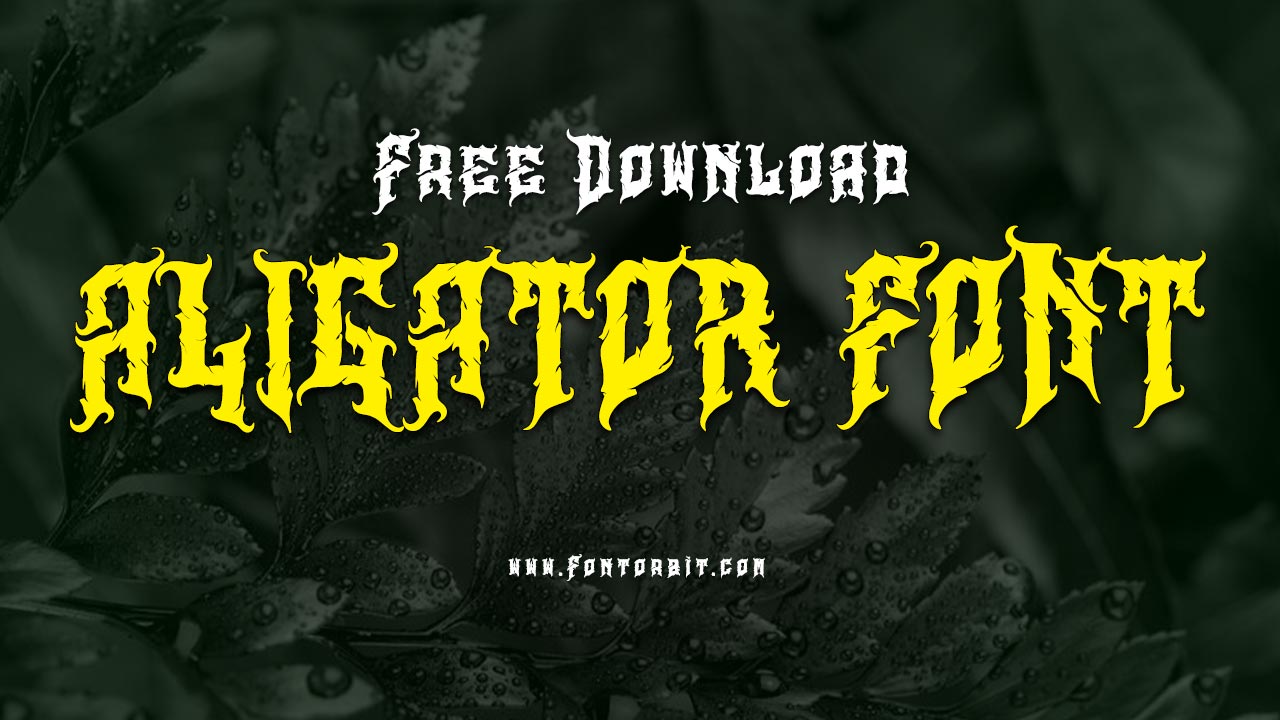
Risman Ginarwan designed the Aligator Font, a Gothic-style typeface available through Garisman Studio. Known for its bold and dramatic appearance, Aligator Font brings a distinctive, powerful look to a variety of design projects. It is available for free for personal use, making it accessible for non-commercial creative projects.
The Gothic style characterizes the Aligator Font, giving it a striking and impactful appearance. The font family includes:
Aligator Font’s bold, Gothic design makes it an excellent choice for projects that require a strong visual impact. Its unique style suits a range of applications where you desire a dramatic and commanding look.
People often use the Aligator Font in contexts that benefit from a bold, Gothic aesthetic. Its unique design adds a sense of drama and intensity to various forms of communication and creative expression, making it a popular choice for graphic designers and artists.
Aligator Font embodies a Gothic style that adds a powerful and dramatic touch to various designs. While it may not be suited for formal documents or minimalist projects, it excels in applications where a bold, impactful look is desired.
Pair Aligator Font with modern, clean fonts or simple design elements to create a compelling contrast and enhance its visual appeal.
Aligator Font is known for its Gothic style, bold appearance, and strong impact, making it suitable for dramatic and creative projects.
Pair Aligator Font with sans-serif fonts by using Aligator Font for headlines or focal points and sans-serif fonts for body text to create a balanced and readable design.
Aligator Font is ideal for applications that require a bold and dramatic visual style, such as posters, book covers, T-shirt designs, album artwork, and more.
Combine Aligator Font with script fonts by using Aligator Font for titles or main headings and script fonts for accents or decorative elements to add a touch of elegance and maintain readability.